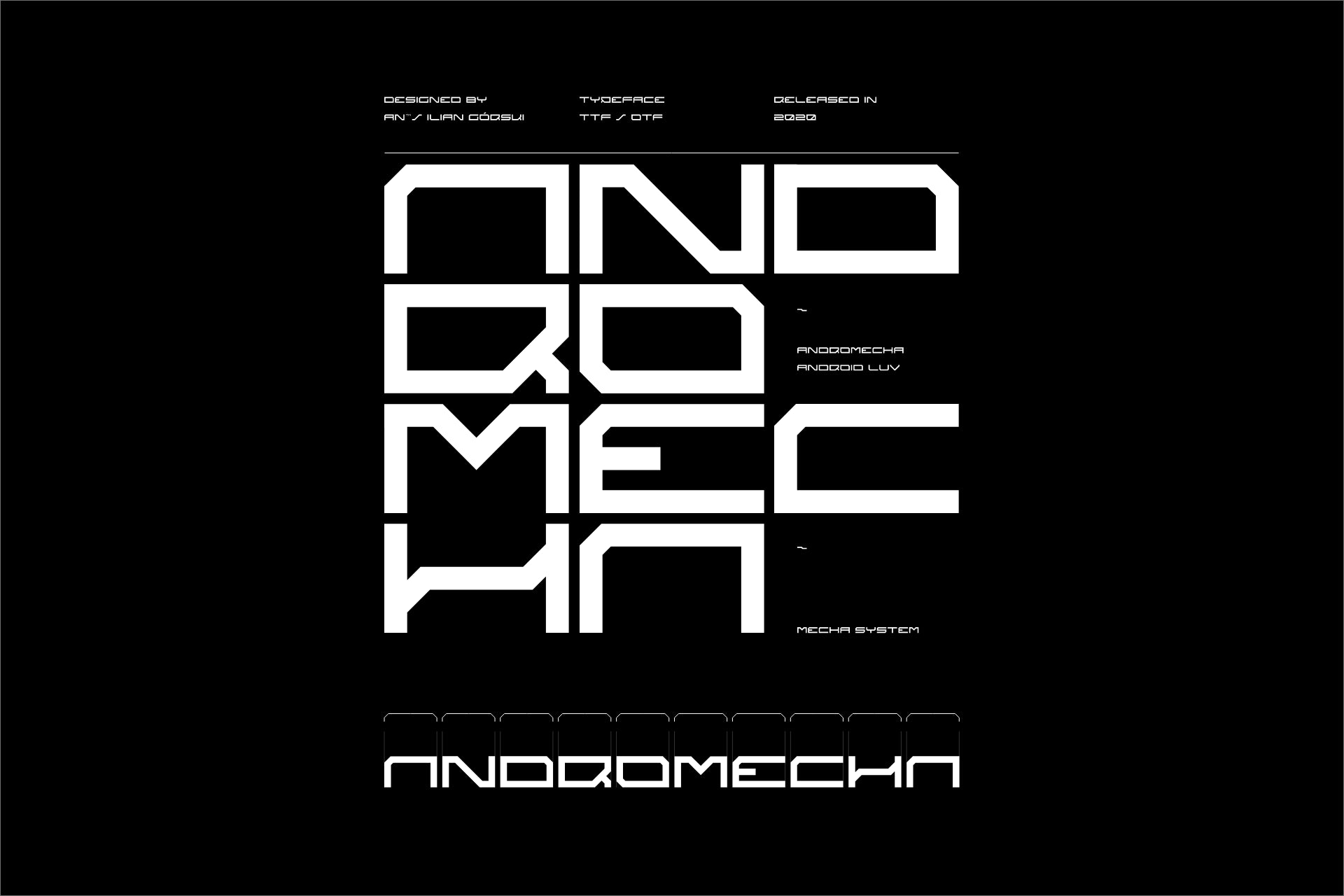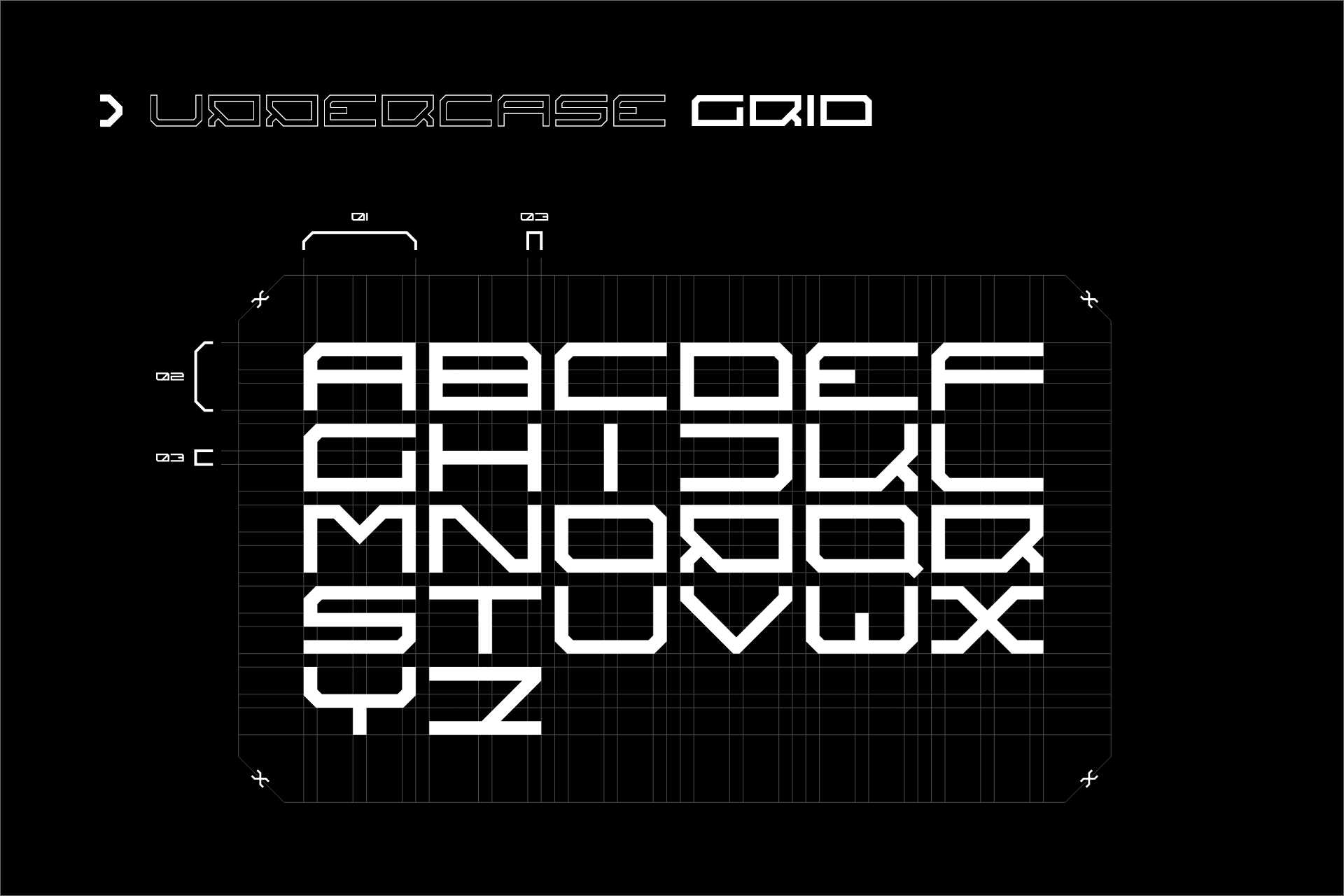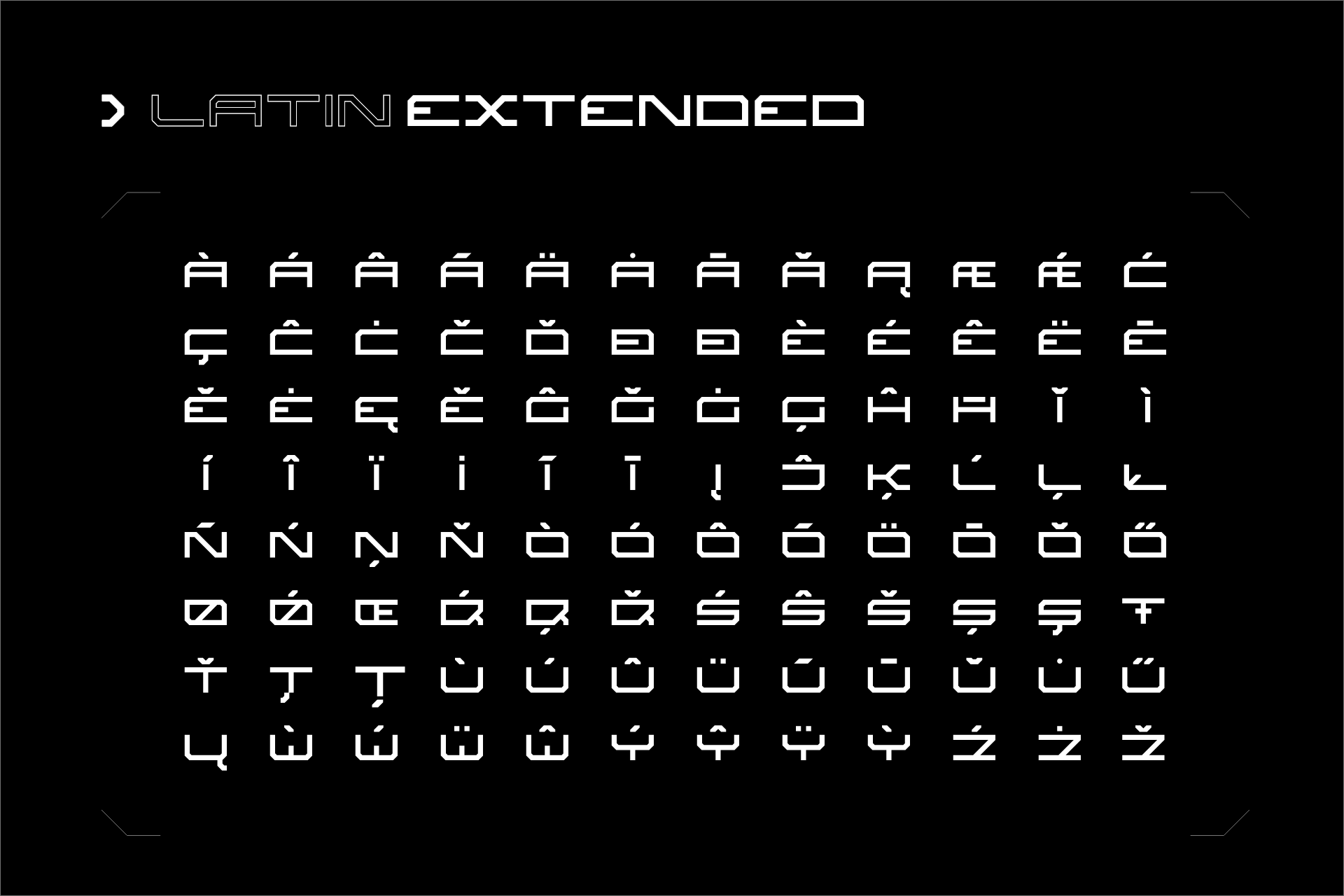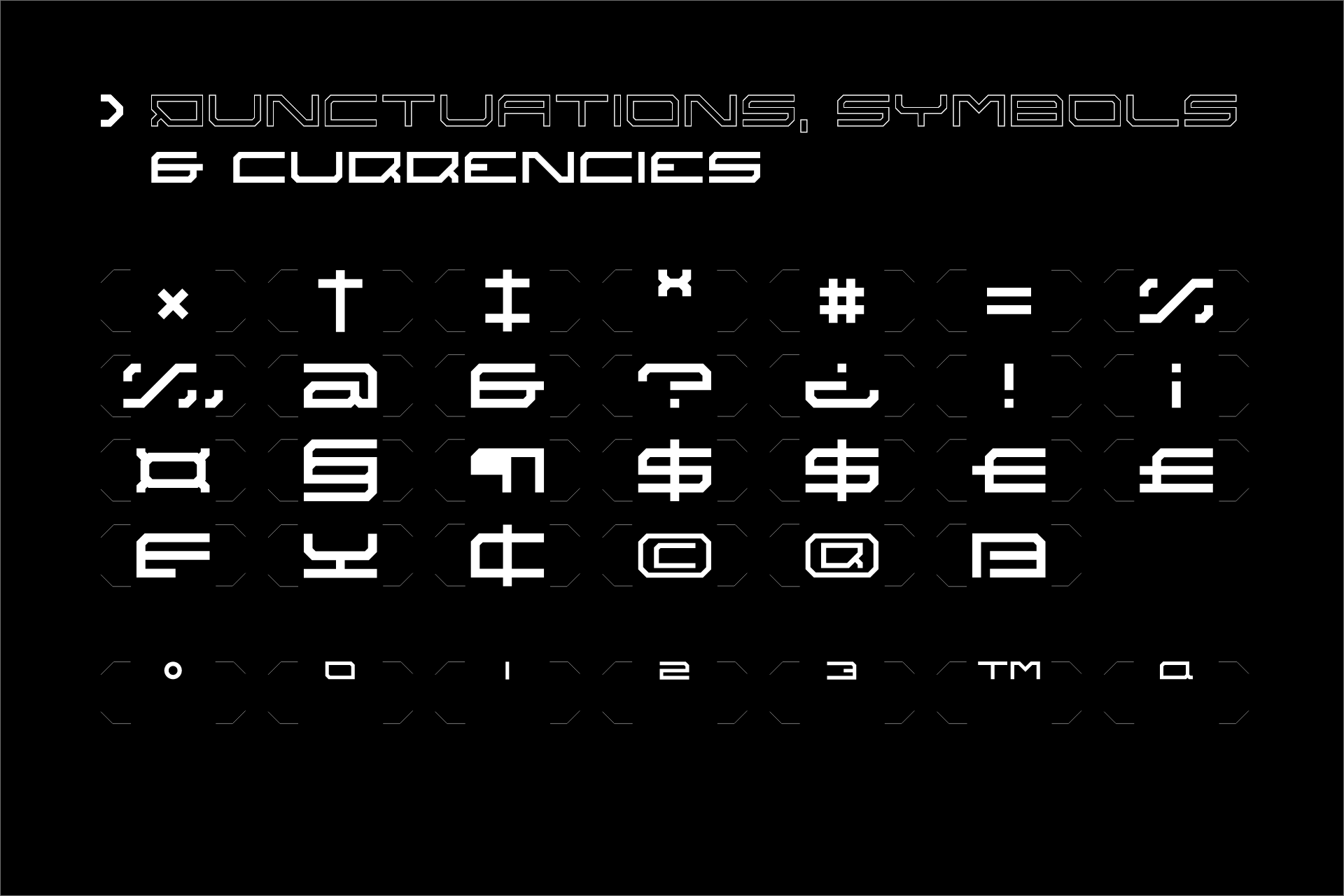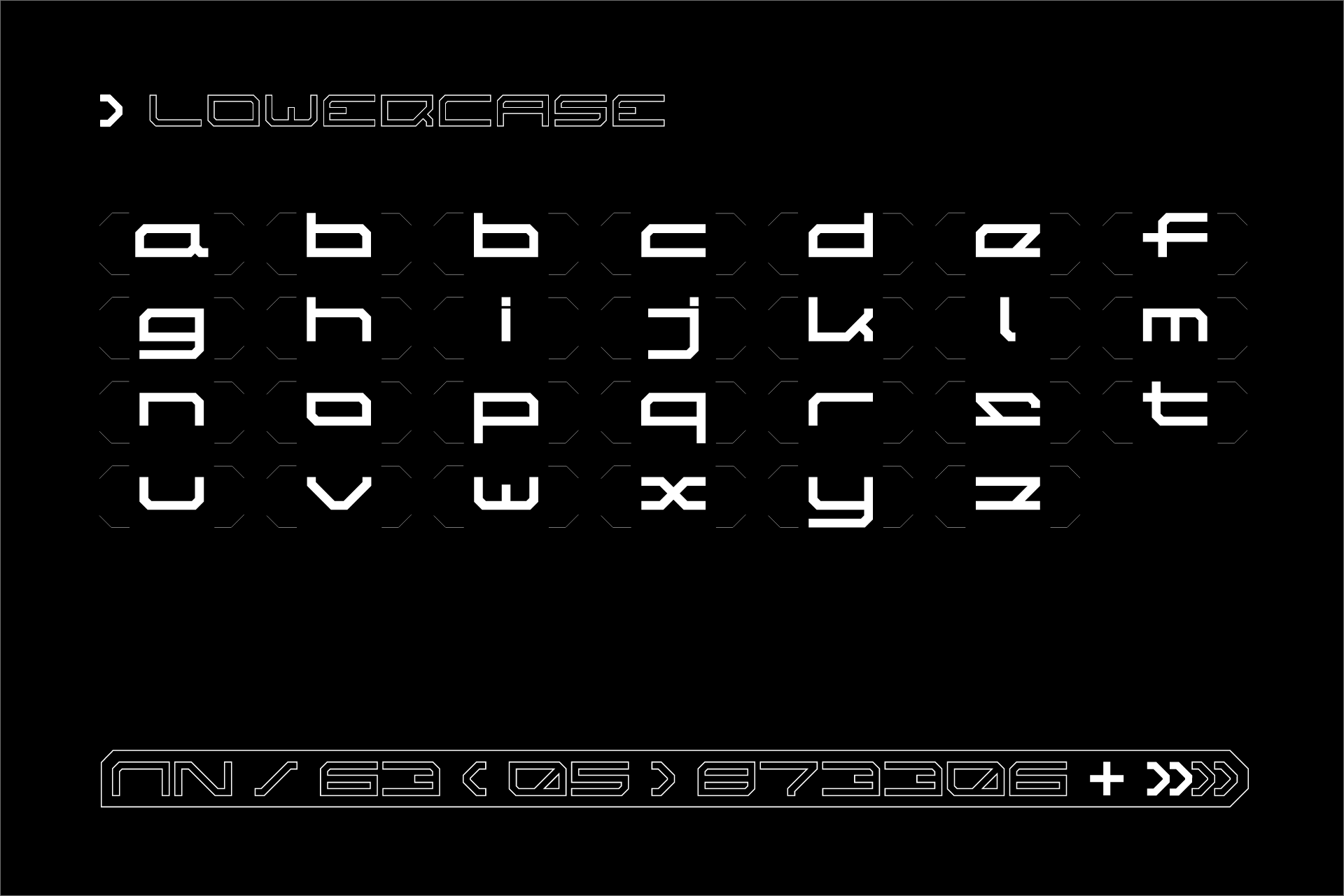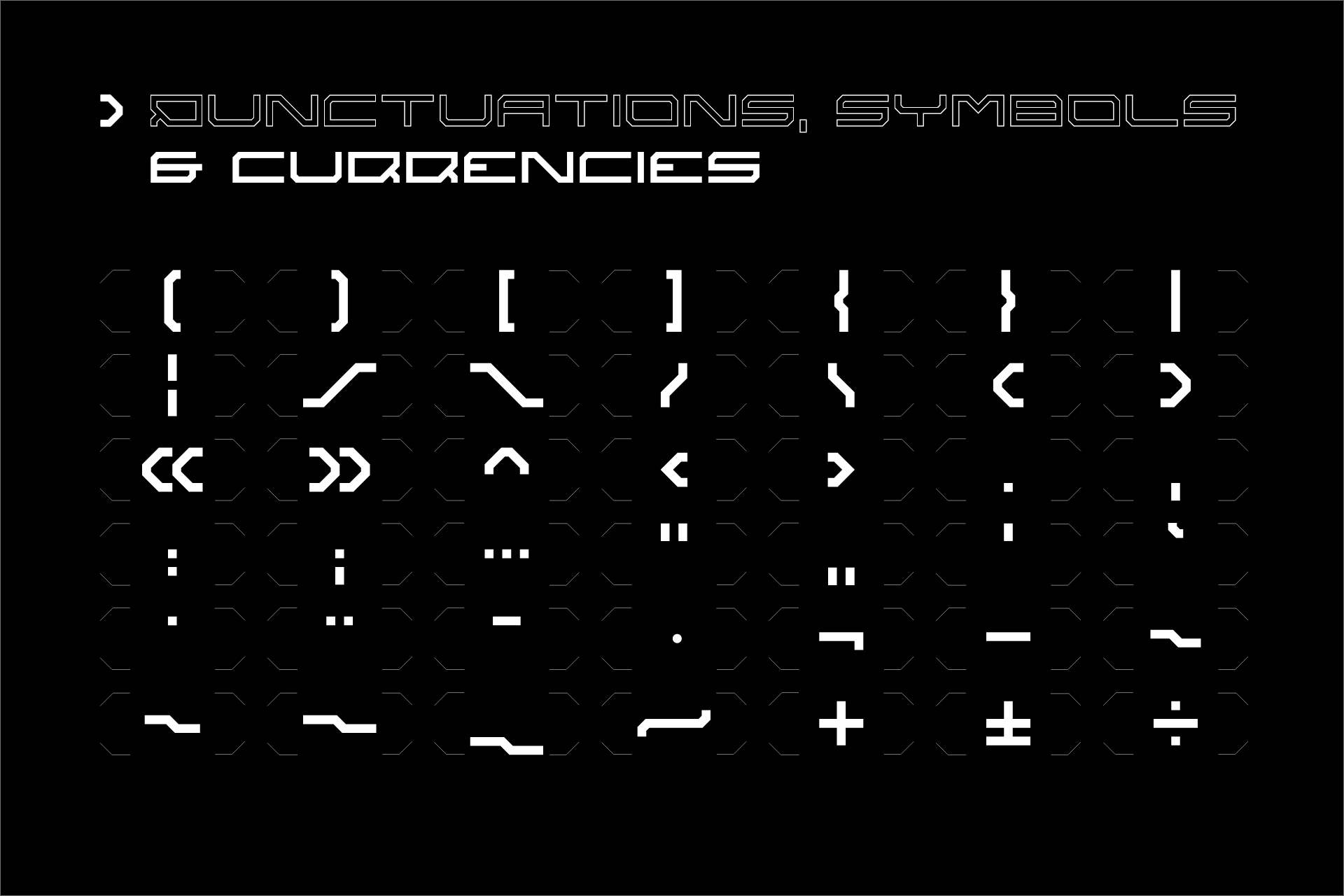
Andromecha Display Font
A wide display face built for statements rather than paragraphs. Extended, geometric, and squared at the joins — it holds up at billboard scale and stays legible cropped tight.
- 399 glyphs
- 100+ languages
- Display and headline use